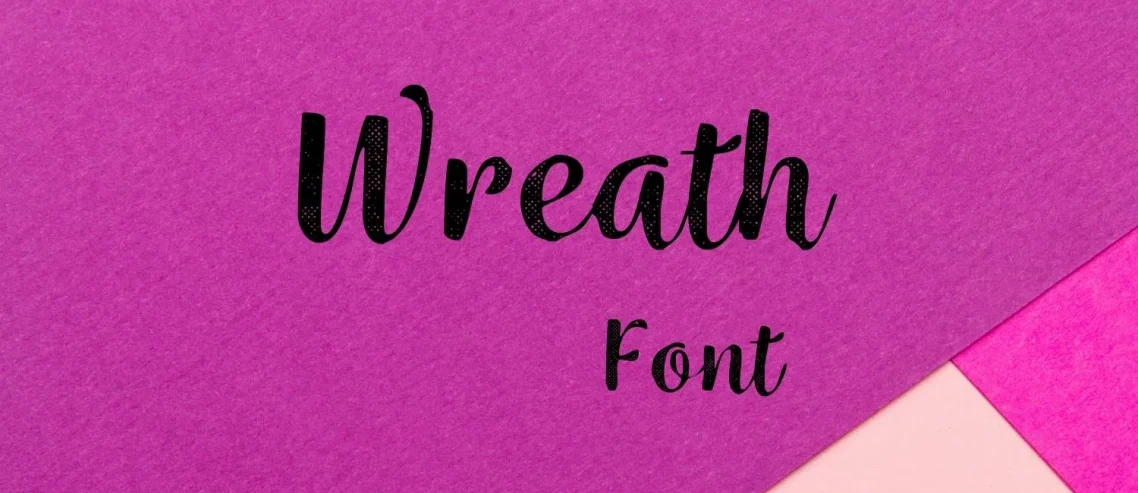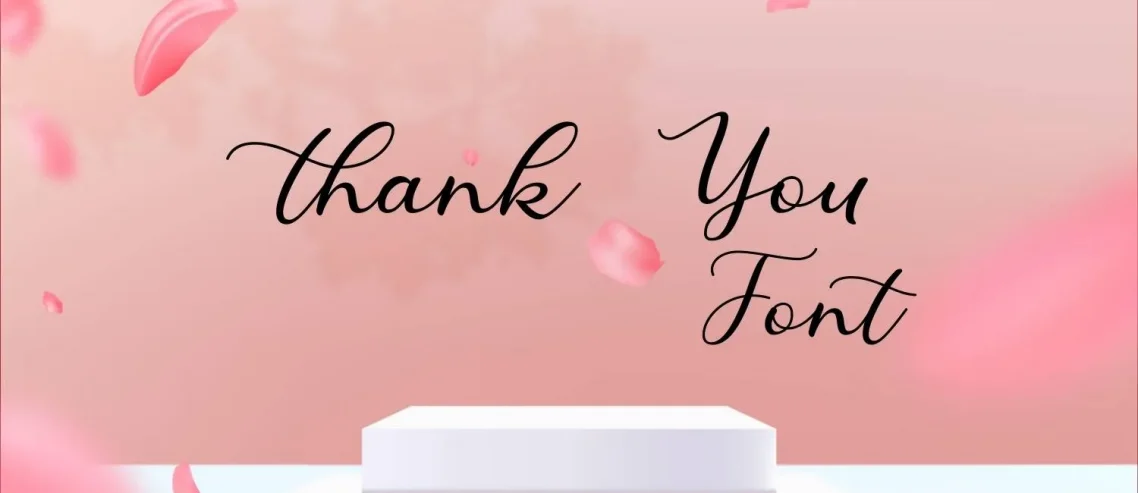
Valorant Font Free Download
Valorant Font is a retro typeface that was designed by Riot Games. The Typeface was created to be used in the game Valorant. The font is also used in the game’s logo. The font is available in two weights, light and bold. The font was designed by Riot Games’ in-house type foundry, Type Foundry. The …
Aldo Font Free Download
Aldo Font is a typeface designed by Aldo Novarese and released by Nebiolo in 1952. The design is based on an earlier typeface called Novella, which was also designed by Aldo Novarese and released by the Nebiolo foundry in 1950. It has a condensed texture style and has a pairing personality with other sans-serif style …
Thank You Font Free Download
Thank You Font is a script typeface designed by Auberon and released through Google Fonts. The Thank You Font family includes 6 weights – Thin, Light, Regular, Medium, Bold and Black – all with matching italics. You can pair the typeface and make valuable designs with a romantic font that also has similar characters and …
Neptune Font Free Download
Neptune Font was created by French type designer Jean-Baptiste Levée, and named after the planet Neptune. The family includes 12 styles: 6 weights (Light to Black) with corresponding italics. This is a classic Didone or modern serif typeface with a strong contrast between thick and thin strokes. Vertical stress, high x-height, and a compact cap …
Recoleta Font Free Download
Recoleta Font is a typeface that was designed by Argentinean designer Alejandro Paul. The Typeface is named after the neighborhood of Recoleta in Buenos Aires, where Paul grew up. This Font is inspired by the hand-painted signs that can be seen throughout Buenos Aires. This Font has a unique style that sets it apart from …
Wreath Font Free Download
Wreath Font is a decorative font that was created by weknow in 2009. It was inspired by the wreaths that are often used to decorate houses during the Christmas season. If you are looking for a festive, Christmas-themed font for your next project, then be sure to check out the Wreath Font. The texturing of …